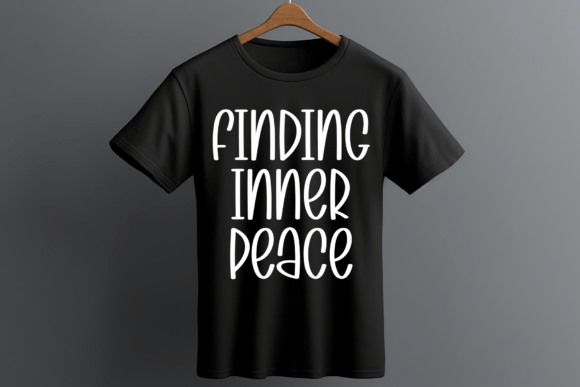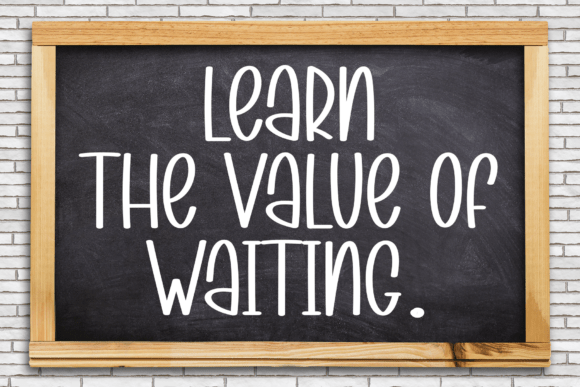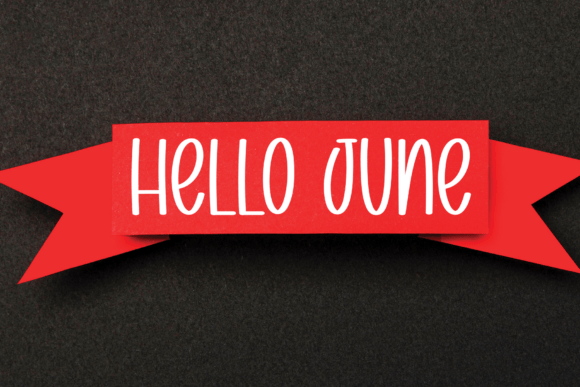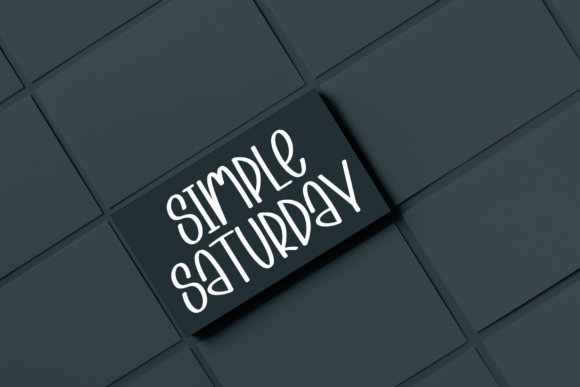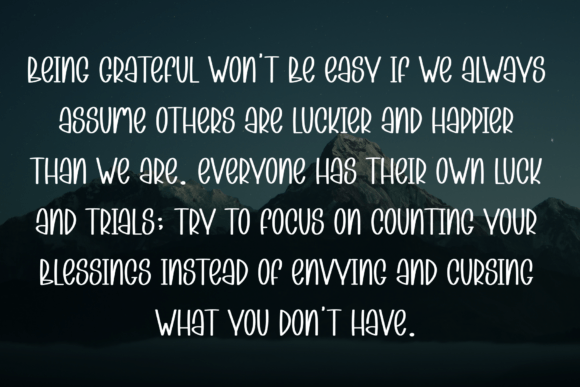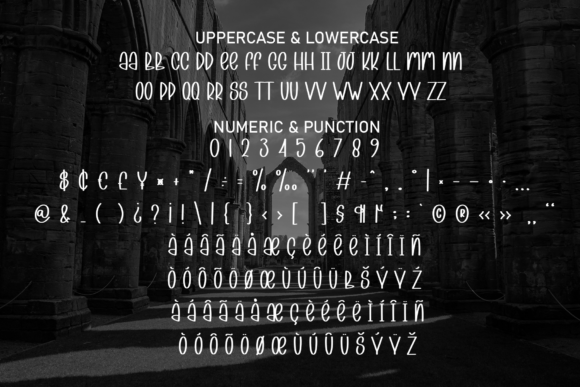
Unveiling the Power of Black History Font: A Timeless Tribute to the Legacy of the Past
In the realm of typography, few fonts have made a statement as profound as the Black History Font. This poignant, hand-drawn display font has been meticulously crafted to infuse commemorative and educational projects with a soulful, human touch. With its unique blend of elegance and emotional resonance, Black History Font has emerged as the premier choice for designers and crafters seeking to honor the legacy of the past.
The Distinctive Characteristics of Black History Font
Black History Font boasts tall, slender letterforms that exude a sense of sophistication and refinement. The organic, rhythmic curves that define this typeface capture the essence of heartfelt storytelling, evoking a deep emotional response in the viewer. The high-impact “folk-chic” silhouette and “timeless-tribute” soul of Black History Font make it an ideal choice for projects that require a strong visual statement.
Applications of Black History Font
The versatility of Black History Font is evident in its wide range of applications. This font is perfectly suited for:
- Museum Exhibition Branding: Black History Font can be used to create captivating exhibition titles, headers, and signage that reflect the significance and gravity of the exhibits.
- Independent Documentary Titles: The font’s cinematic feel makes it an excellent choice for documentary titles, adding an air of authenticity and emotional depth to the narrative.
- High-End Editorial Heritage Features: Black History Font can be used to create visually stunning editorial features that celebrate heritage and legacy, adding a touch of sophistication and elegance to the publication.
- Atmospheric Social-Justice Social Media Headers: The font’s strong, impactful presence makes it perfect for social media headers that aim to raise awareness about social justice issues, inspiring engagement and conversation.
The Benefits of Using Black History Font
Black History Font offers a range of benefits that make it an attractive choice for designers and crafters:
- Emotional Resonance: The font’s unique design and rhythmic curves evoke a deep emotional response, allowing designers to create projects that resonate with their audience.
- Versatility: Black History Font can be used across a range of applications, from museum exhibitions to social media headers, making it a valuable addition to any designer’s toolkit.
- Elegance and Sophistication: The font’s tall, slender letterforms and organic curves add a touch of elegance and sophistication to any project, elevating the visual impact and aesthetic appeal.
Tips for Using Black History Font Effectively
To get the most out of Black History Font, consider the following tips:
- Use it sparingly: Black History Font is a display font, and its impact is best maximized when used sparingly. Use it for titles, headers, and key messaging to create a strong visual statement.
- Experiment with colors: The font’s versatility allows it to be paired with a range of colors. Experiment with different color palettes to find the perfect combination that complements your project’s tone and aesthetic.
- Pay attention to typography: Black History Font is designed to be used in conjunction with other typography. Pay attention to font pairings and ensure that the overall typography is cohesive and visually appealing.
Black History Font is a powerful and poignant typeface that has been designed to honor the legacy of the past. With its unique blend of elegance, emotional resonance, and versatility, this font has emerged as a premier choice for designers and crafters seeking to create impactful and meaningful projects. Whether you’re working on a museum exhibition, documentary title, or social media header, Black History Font is the perfect choice for adding a soulful, human touch to your work.